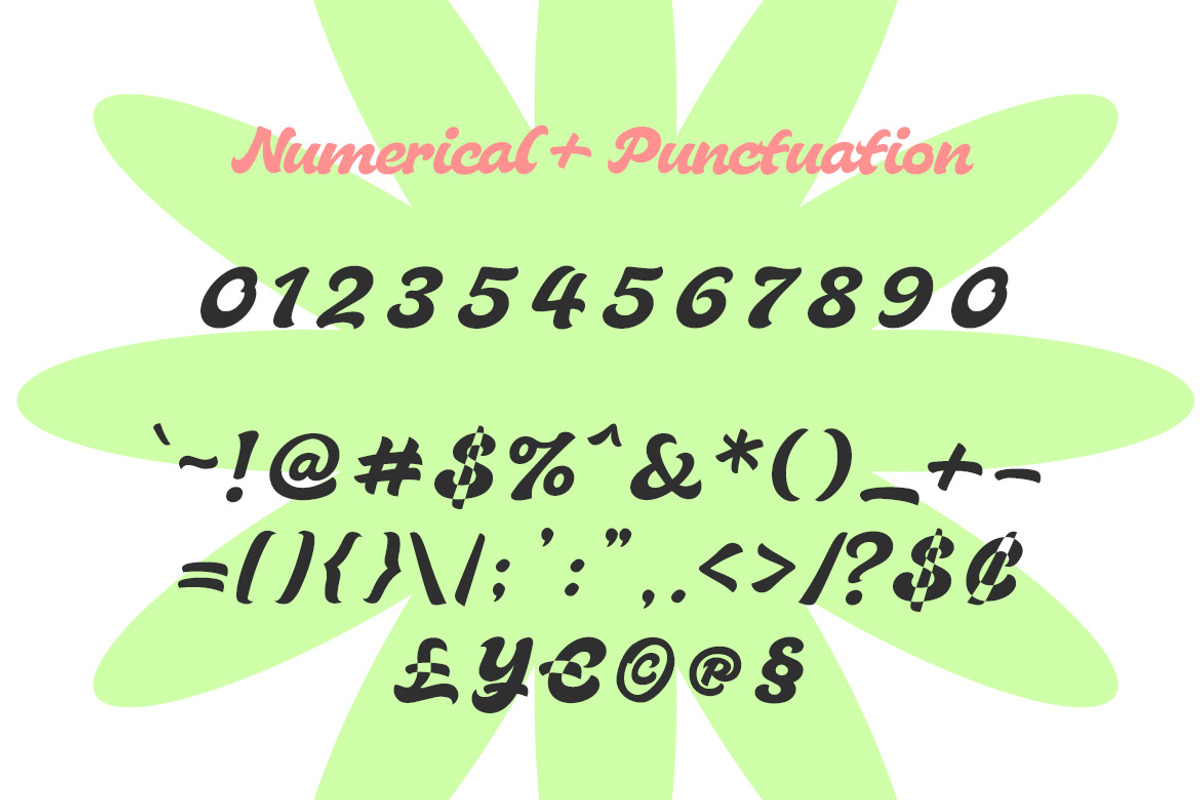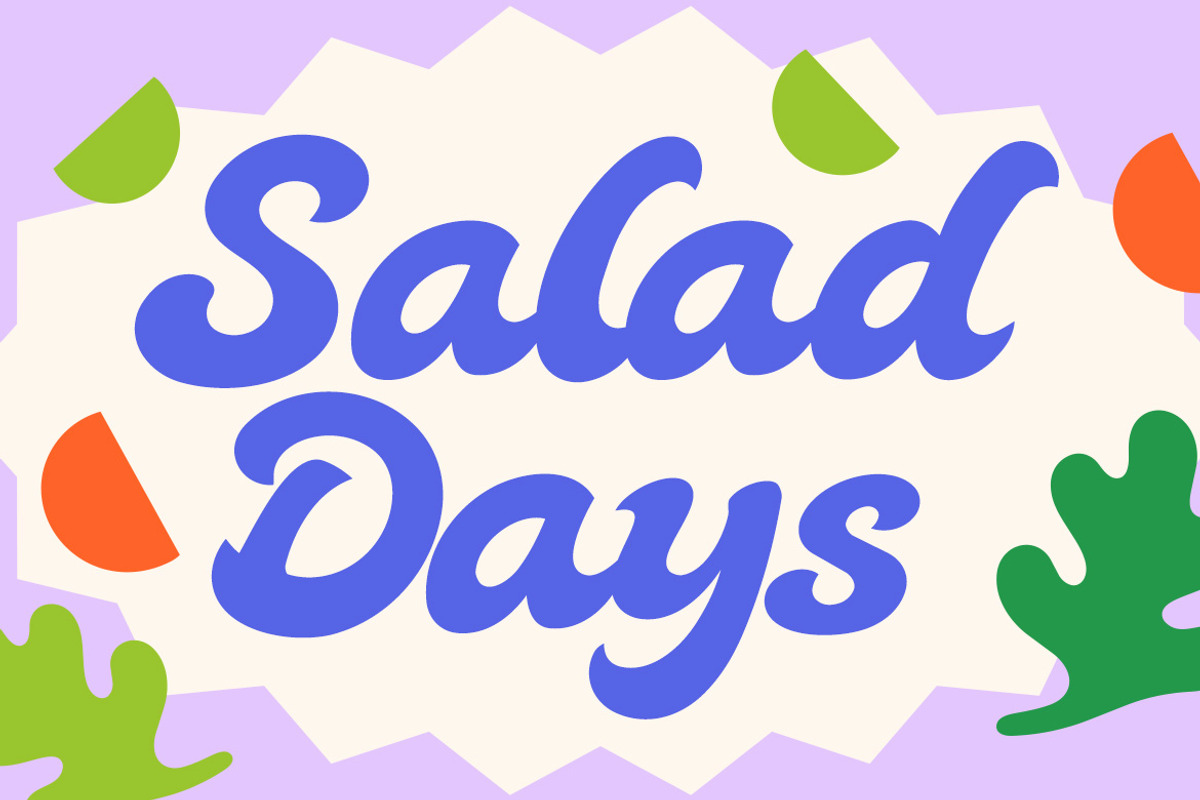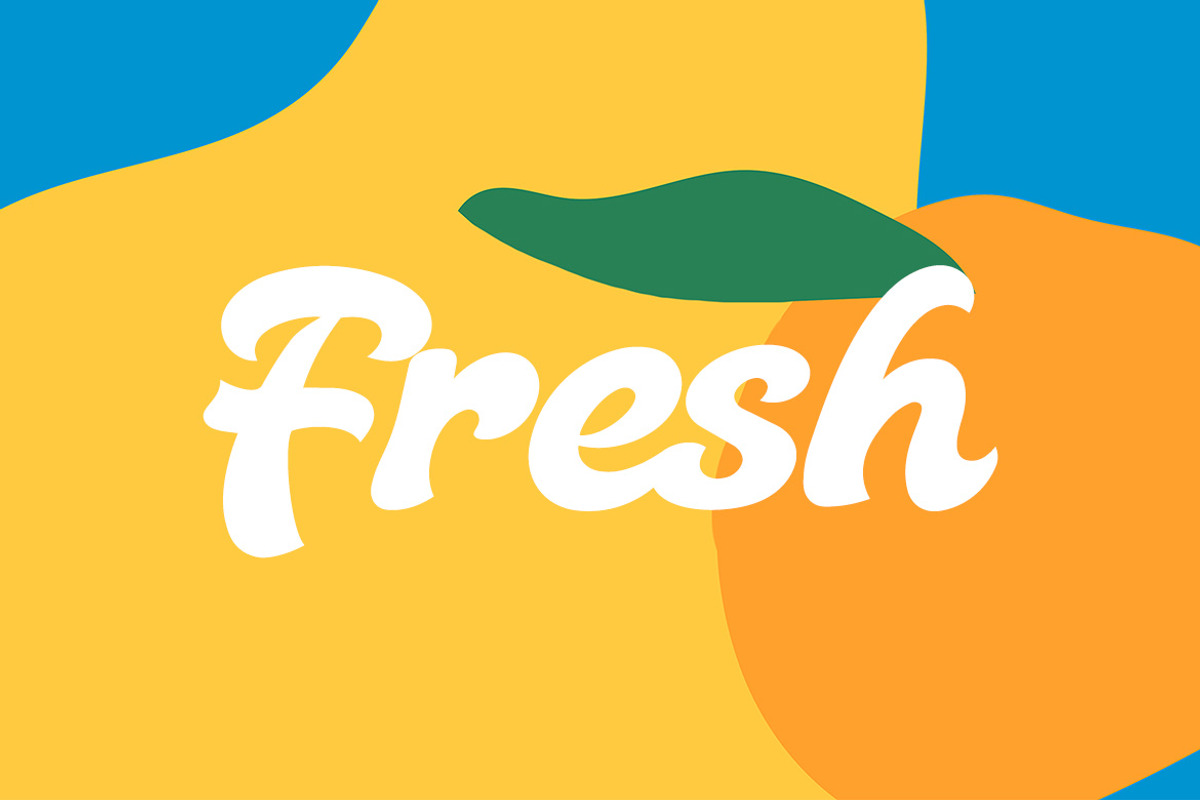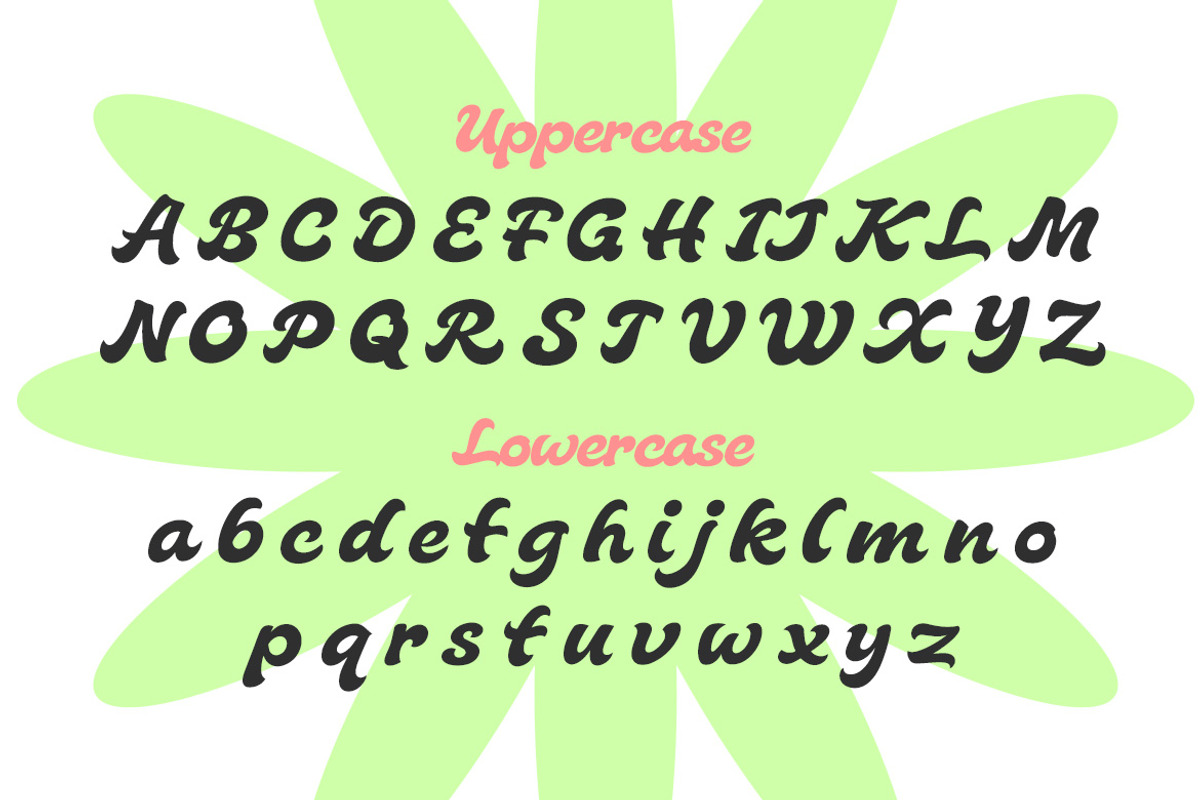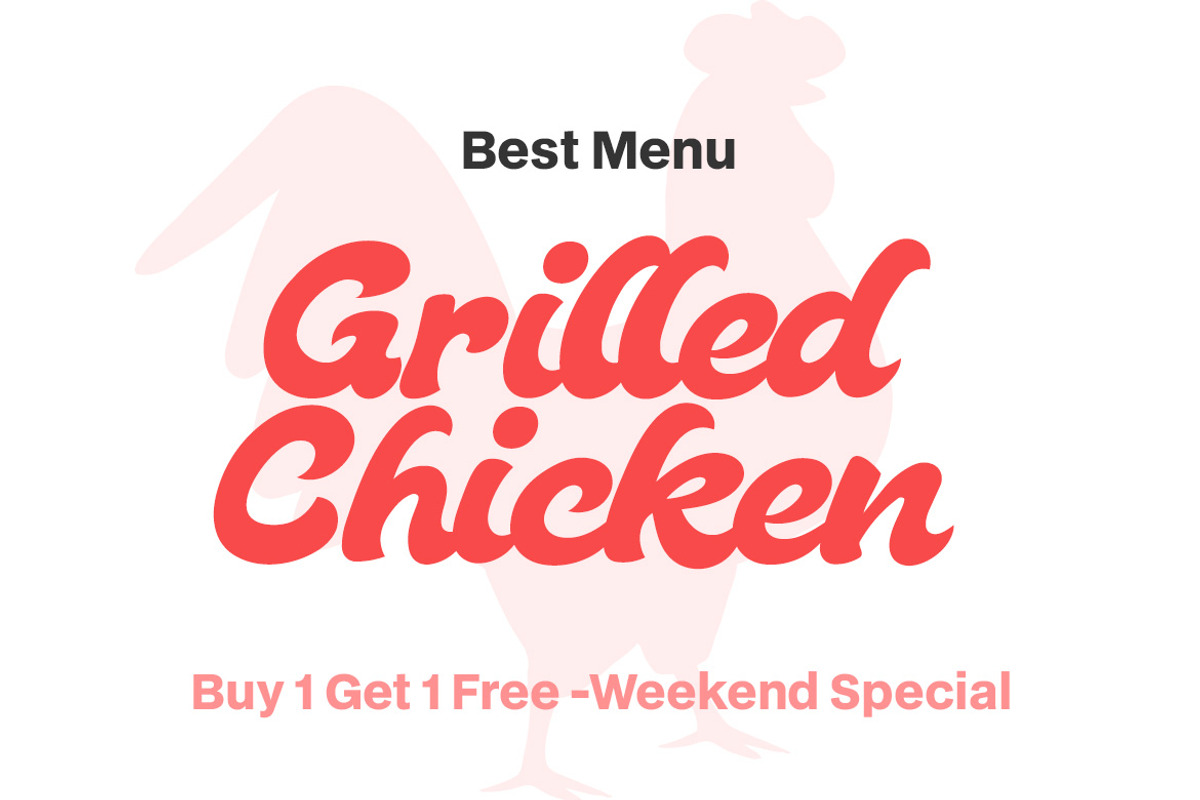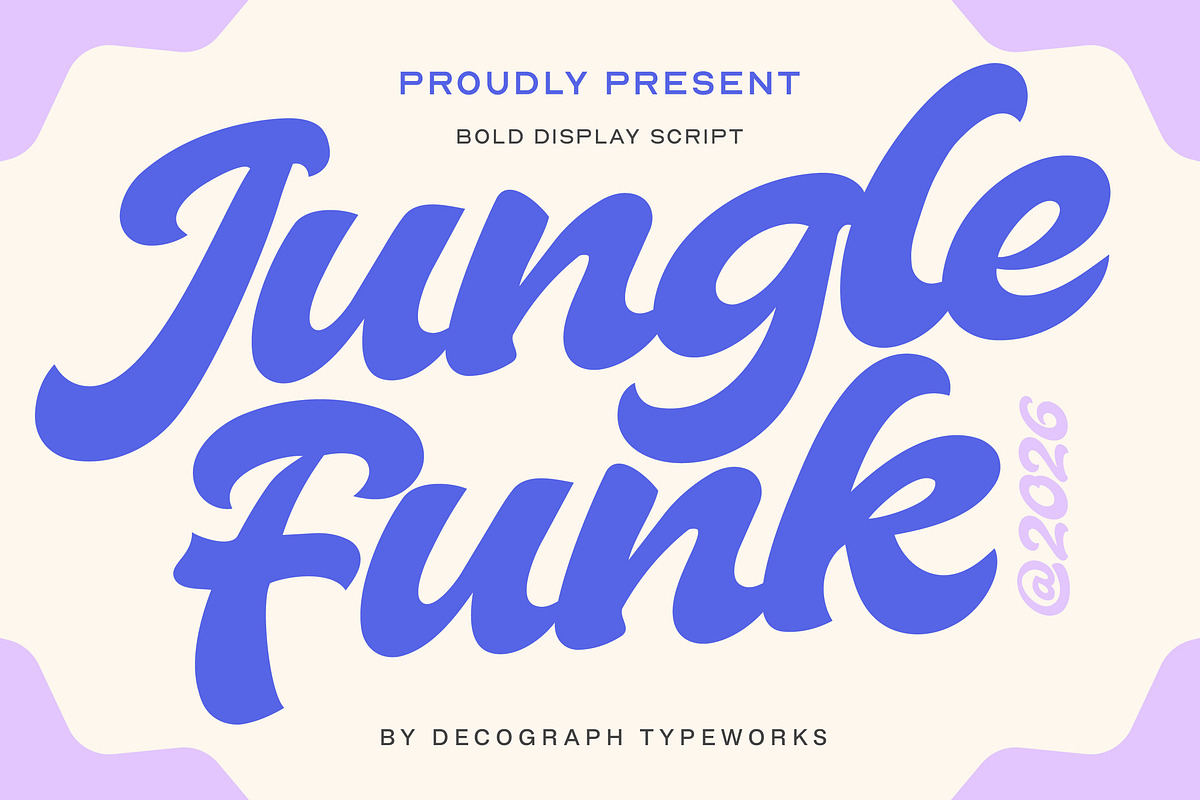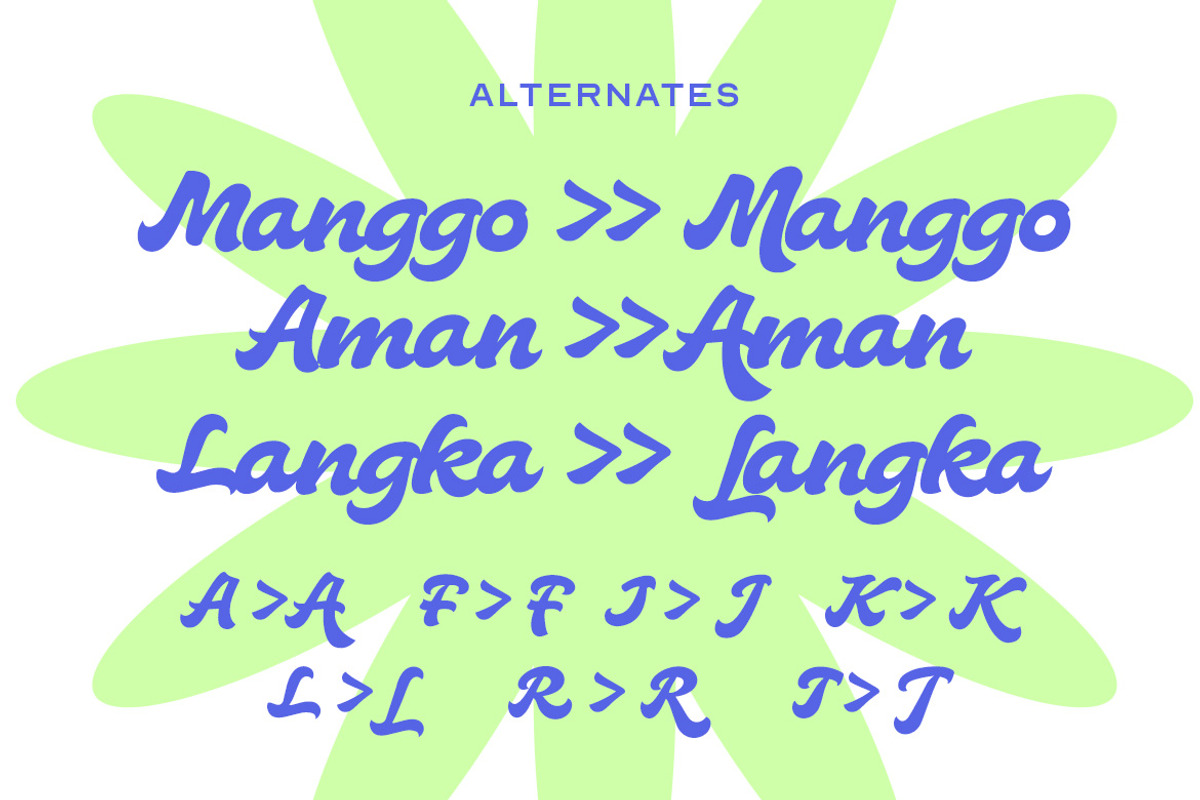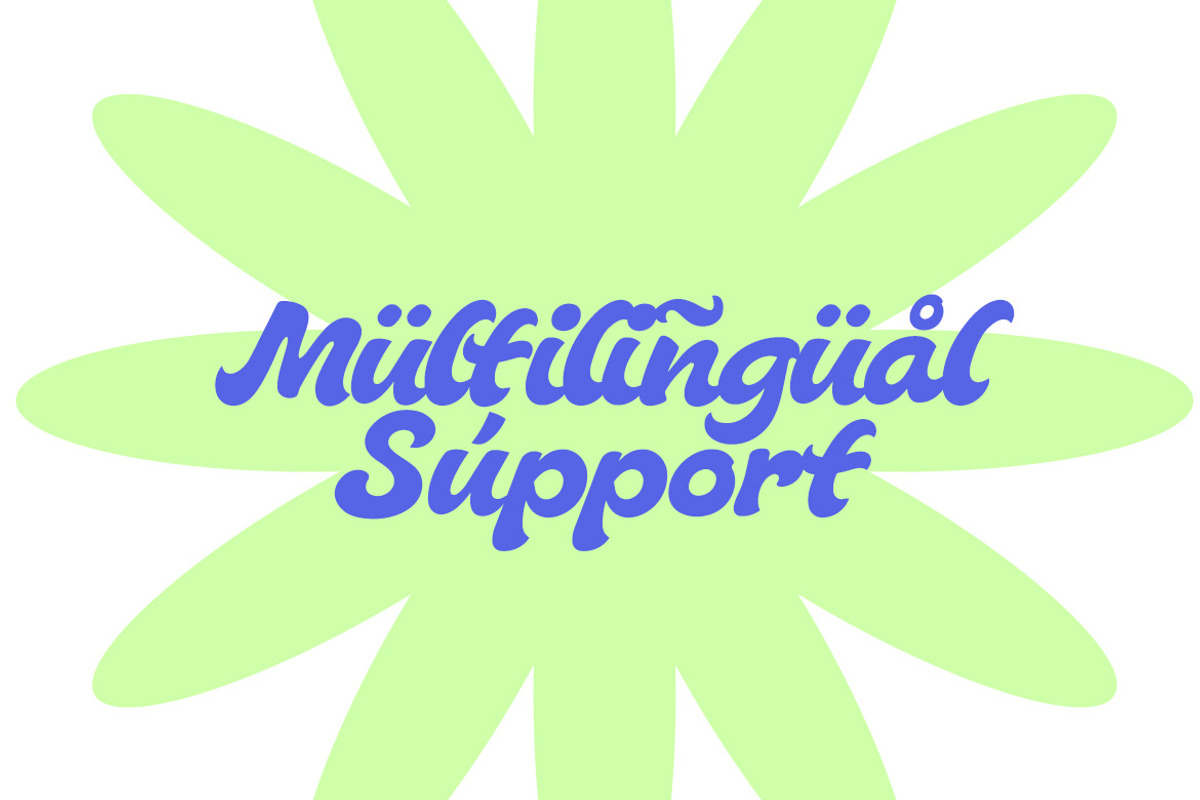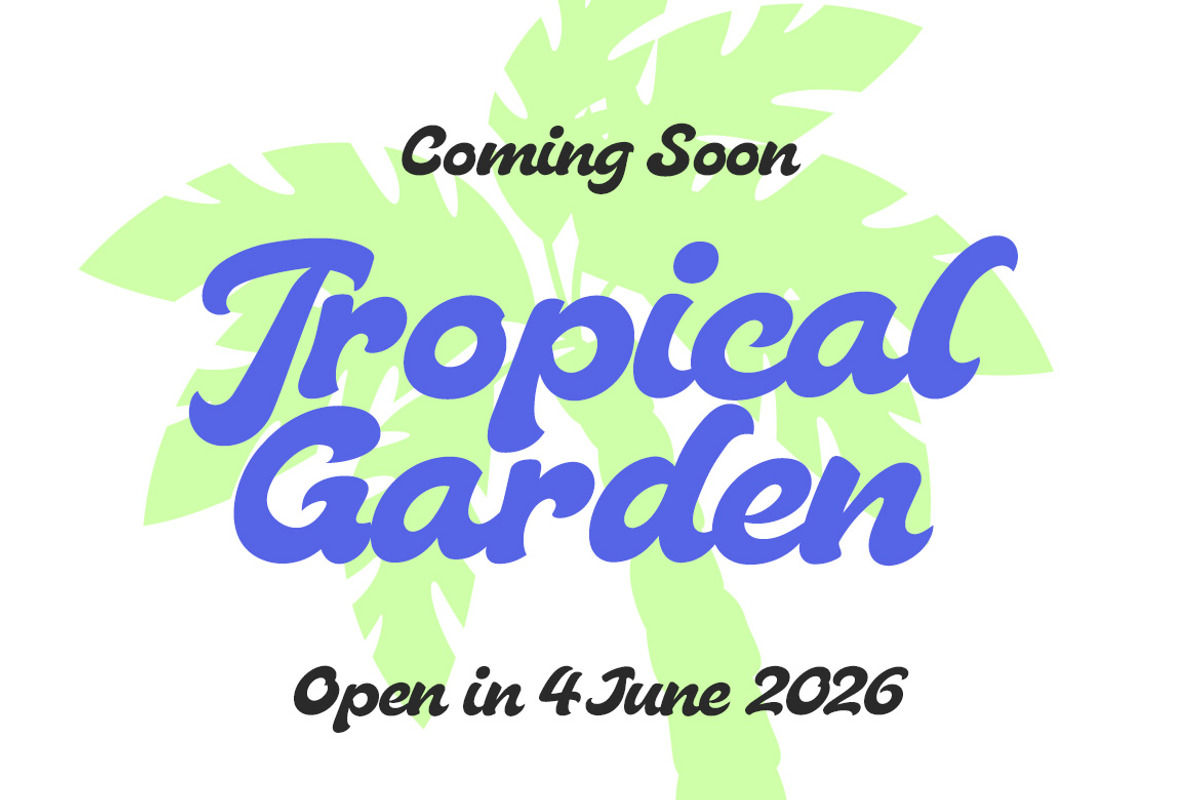
Jungle Funk – Bold Display Script
Jungle Funk is a bold display script font that blends smooth flowing curves with a punchy retro attitude, creating a vibrant and energetic visual presence. With its thick strokes, rounded terminals, and confident swashes, this typeface delivers a perfect balance between playful elegance and strong readability. Inspired by vintage signage and modern branding trends, Jungle Funk is ideal for logos, packaging, posters, apparel, social media graphics, and standout headlines that need a lively, stylish, and expressive touch. Its dynamic rhythm and fluid letterforms make every word feel alive, giving your designs a bold personality that’s both trendy and timeless.
- Smooth Kerning